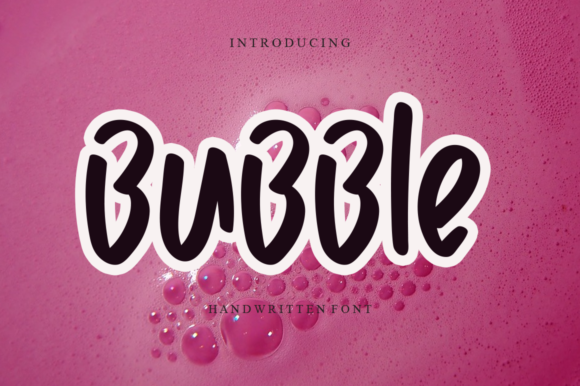
The Whimsical World of Bubble Font: A Designer’s Delight
I’ll never forget the time I was working on a project for a children’s party invitation. I had the design concept all sorted out, but I was stuck on finding the perfect font. The theme was playful and fun, and I needed a font that would match that vibe. That’s when I stumbled upon Bubble Font, and it was love at first sight! 💕
Bubble Font is a whimsical script font with a relaxed theme, featuring a lovely style that instantly elevates any creation. In this article, I’ll share my experience with this beautiful font, its features, and how to make the most of it in your designs.
An Honest Review of Bubble Font
- 💫 The playful, bubbly style that adds a touch of whimsy to any design
- ✅ Easy to read, even in smaller sizes
- 🌈 A wide range of OpenType features, including glyphs and stylistic alternates
- 🤝 Works well for both digital and print designs
- ⚠️ Some letters may appear a bit irregular or imperfect, which can be a deliberate design choice but may not appeal to everyone
- 🤔 Limited use in very formal or professional designs, as it’s more suited for creative and playful projects
The Story Behind Bubble Font
Bubble Font was created with the intention of bringing a playful, carefree vibe to the world of typography. Its designer wanted to craft a font that would evoke feelings of joy and whimsy, perfect for creative projects that require a bit of personality. While the real story behind Bubble Font may be unknown, its impact on the design community is undeniable.
Q: What type of projects is Bubble Font best suited for?
A: Bubble Font is perfect for creative projects, such as kids’ party invitations, posters, social media graphics, and more. It’s also great for digital designs, like blog headers and email newsletters.
Q: Is Bubble Font easy to read?
A: Yes, Bubble Font is generally easy to read, even in smaller sizes. However, its playful style may not be suitable for very long blocks of text or formal documents.
Q: Can I use Bubble Font with other fonts?
A: Absolutely! Bubble Font pairs well with a variety of fonts, from sans-serif fonts like Arial or Helvetica to other script fonts. Experiment with different font combinations to find the perfect match for your design.